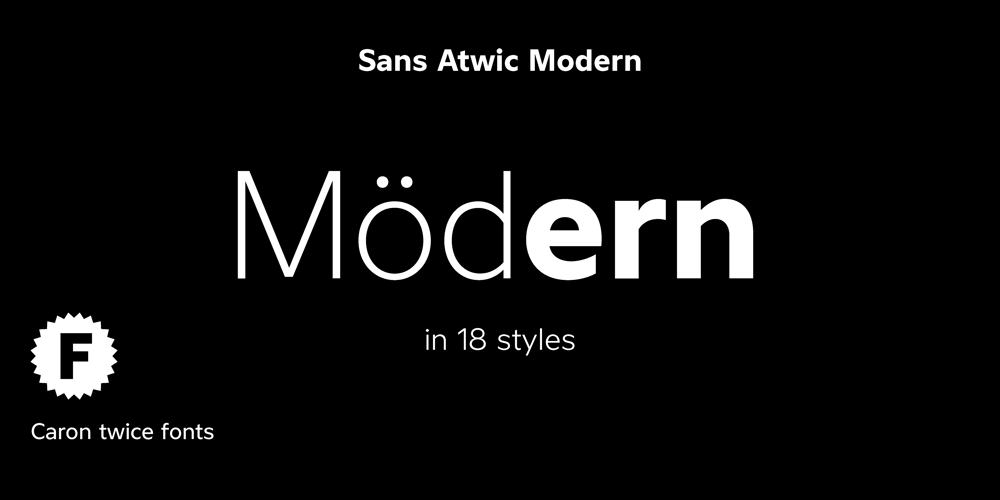
Sans Atwic Modern Font Family was designed by Martin Činčár and published by Caron twice. Sans Atwic Modern contains 19 styles and family package options. Sans Atwic Modern is a clean simple sans serif typeface. It has a universal and neutral look thanks to repeated vertically cut end strokes and thanks to letters that have similar width. Lowercase has higher x-height and its end strokes are open, that a guarantee for better legibility in smaller sizes. Atwic has several alternates which together with left slanted italics freshen the whole font family. It’s handy while working on poster, headline, brand identity, website or mobile app.Specimen:http://carontwice.com/files/specimen_Sans_Atwic_Modern.pdf